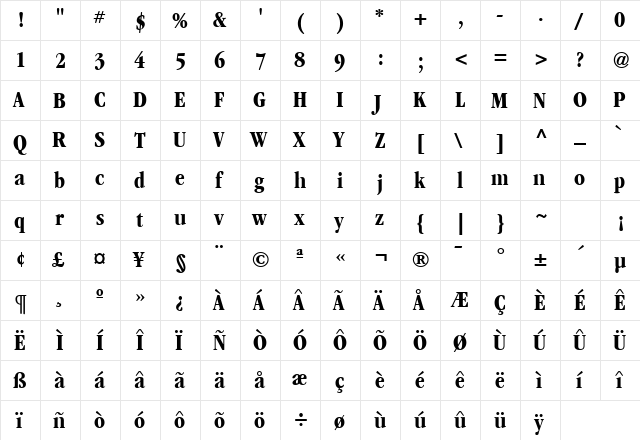
GarryMondrianCond6 BoldSH Font Preview
GarryMondrianCond6 BoldSH
Design Context for GarryMondrianCond6 Typeface
GarryMondrianCond6 is a composed and adaptable typeface that performs quietly and consistently across a wide range of design contexts. Its bold stroke weight gives it real presence on the page. Its narrow stance lets it pack a punch even in space-constrained designs.